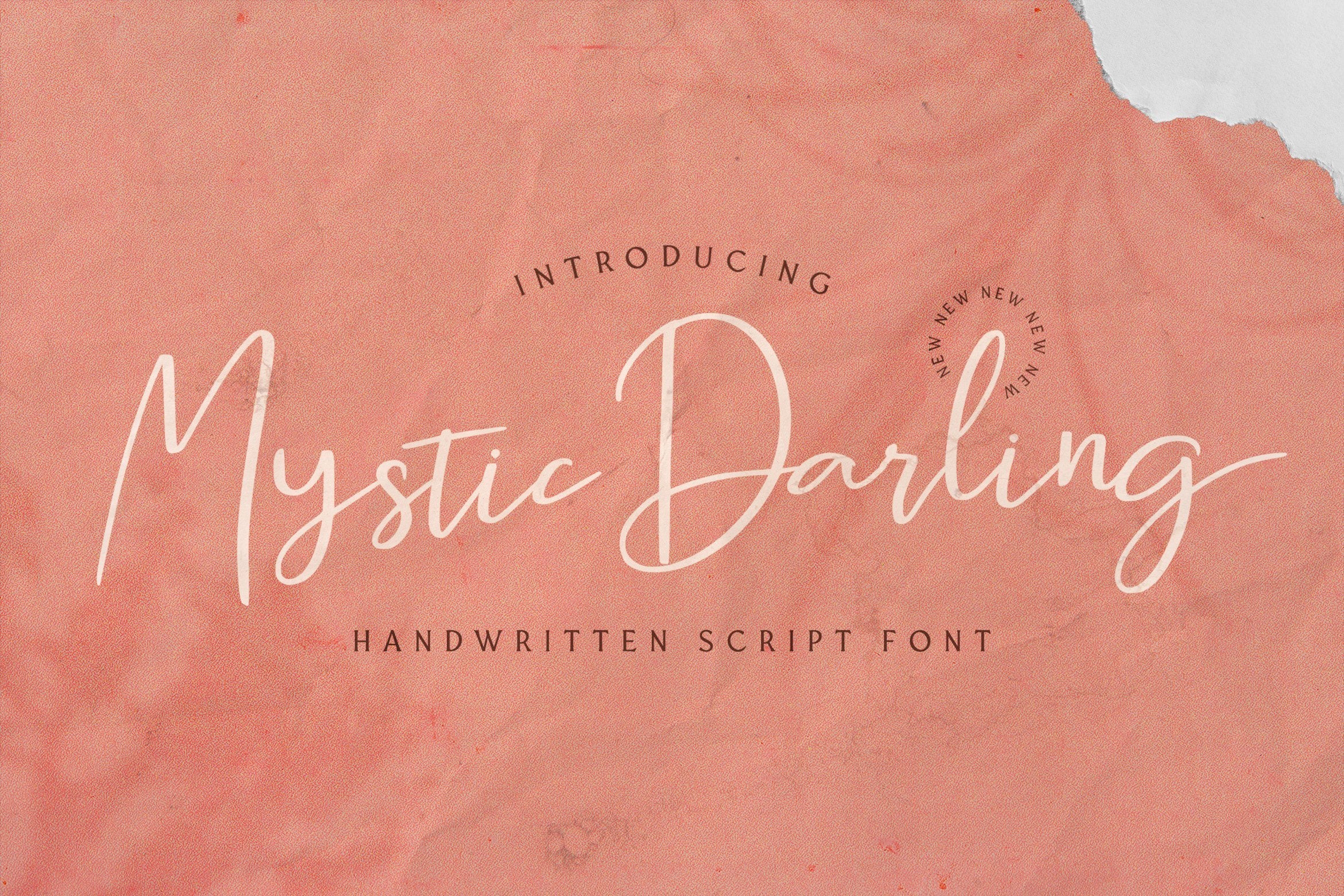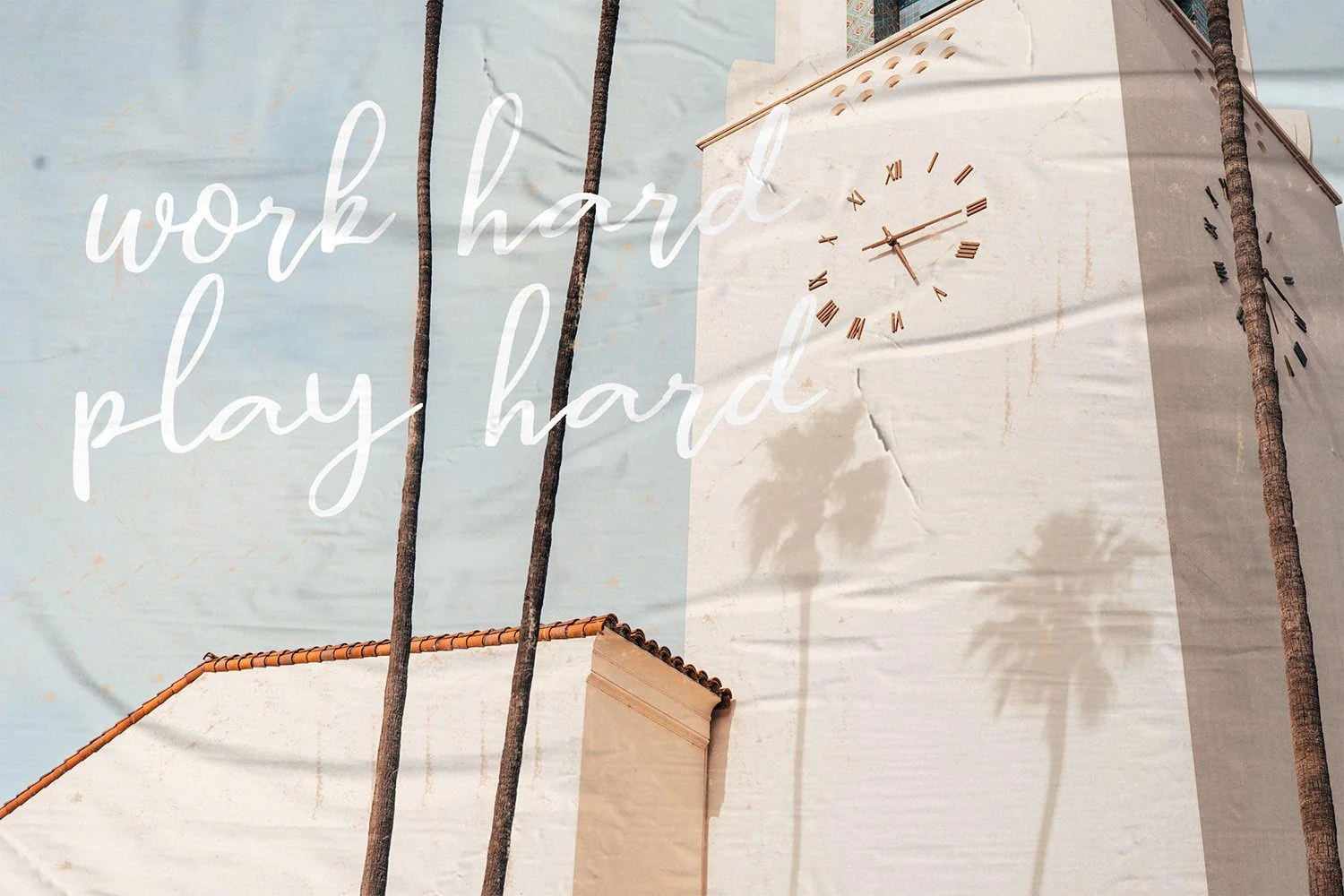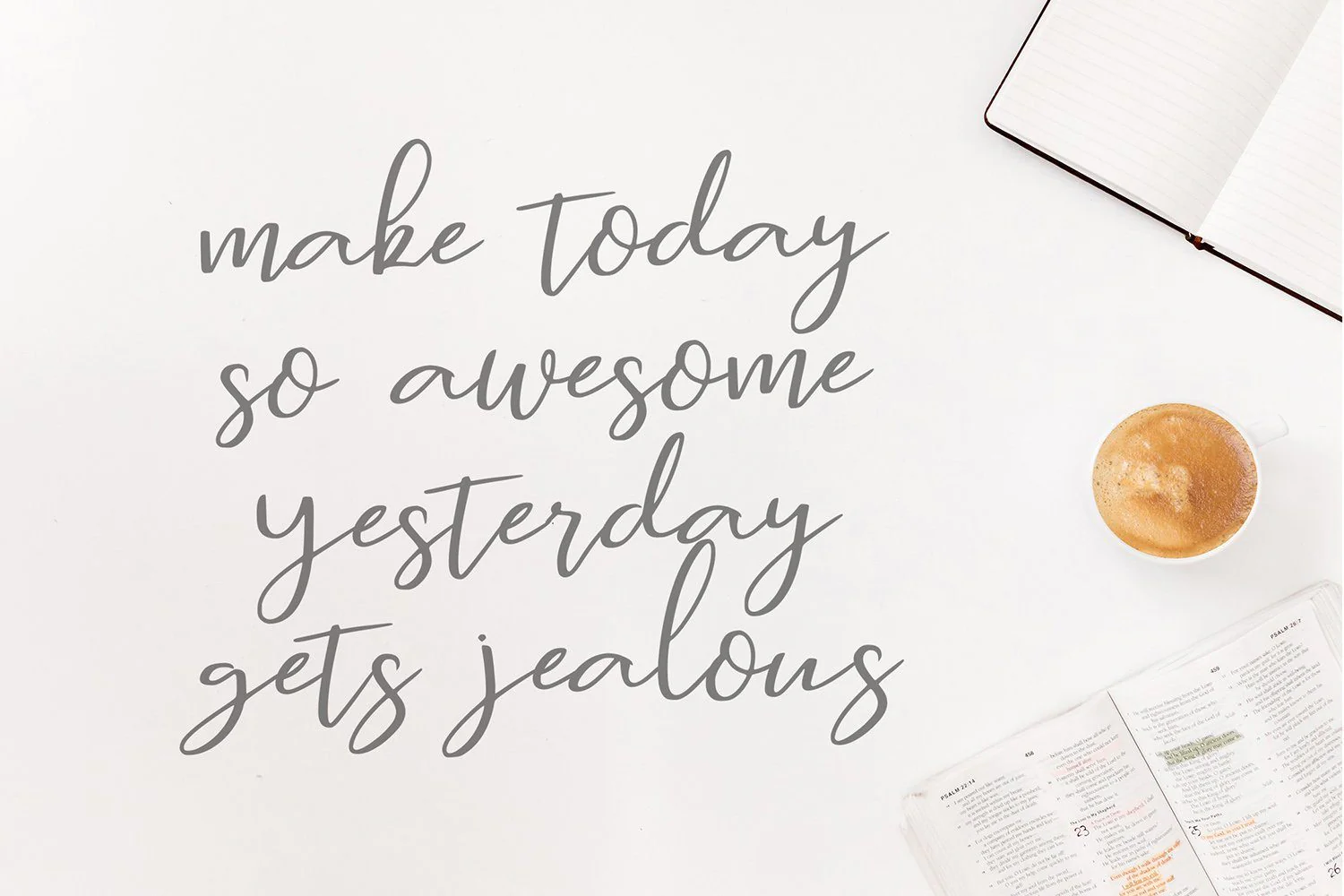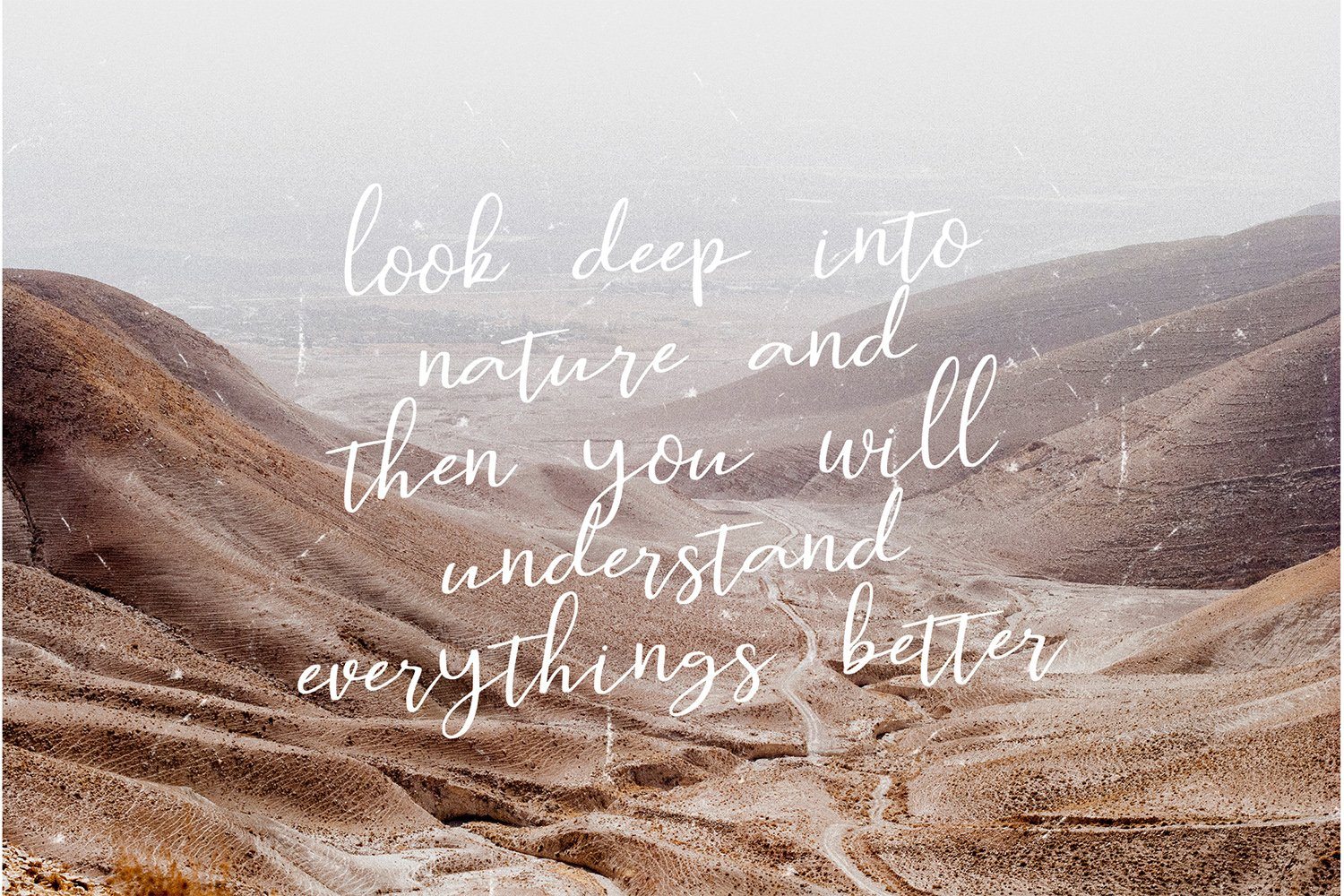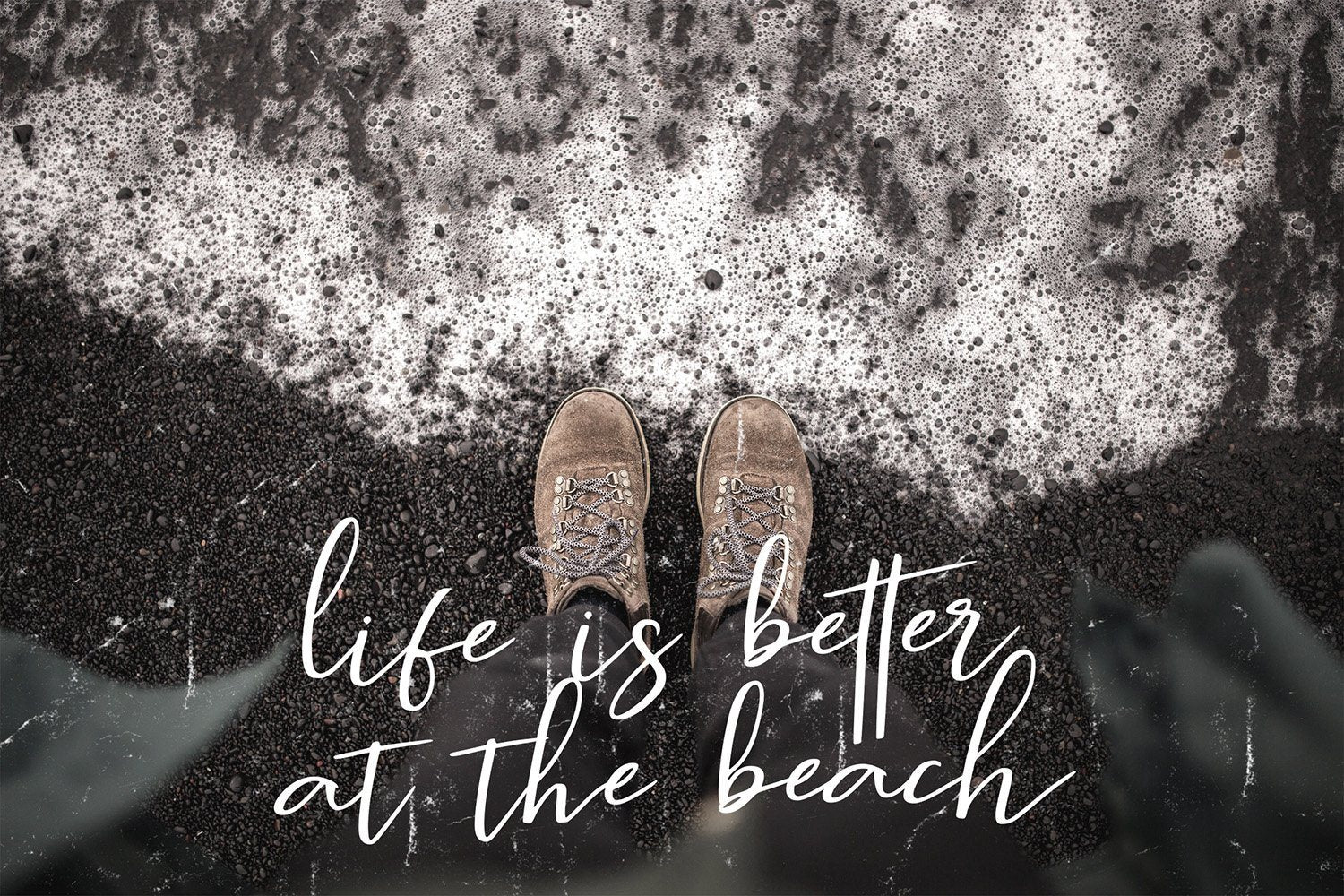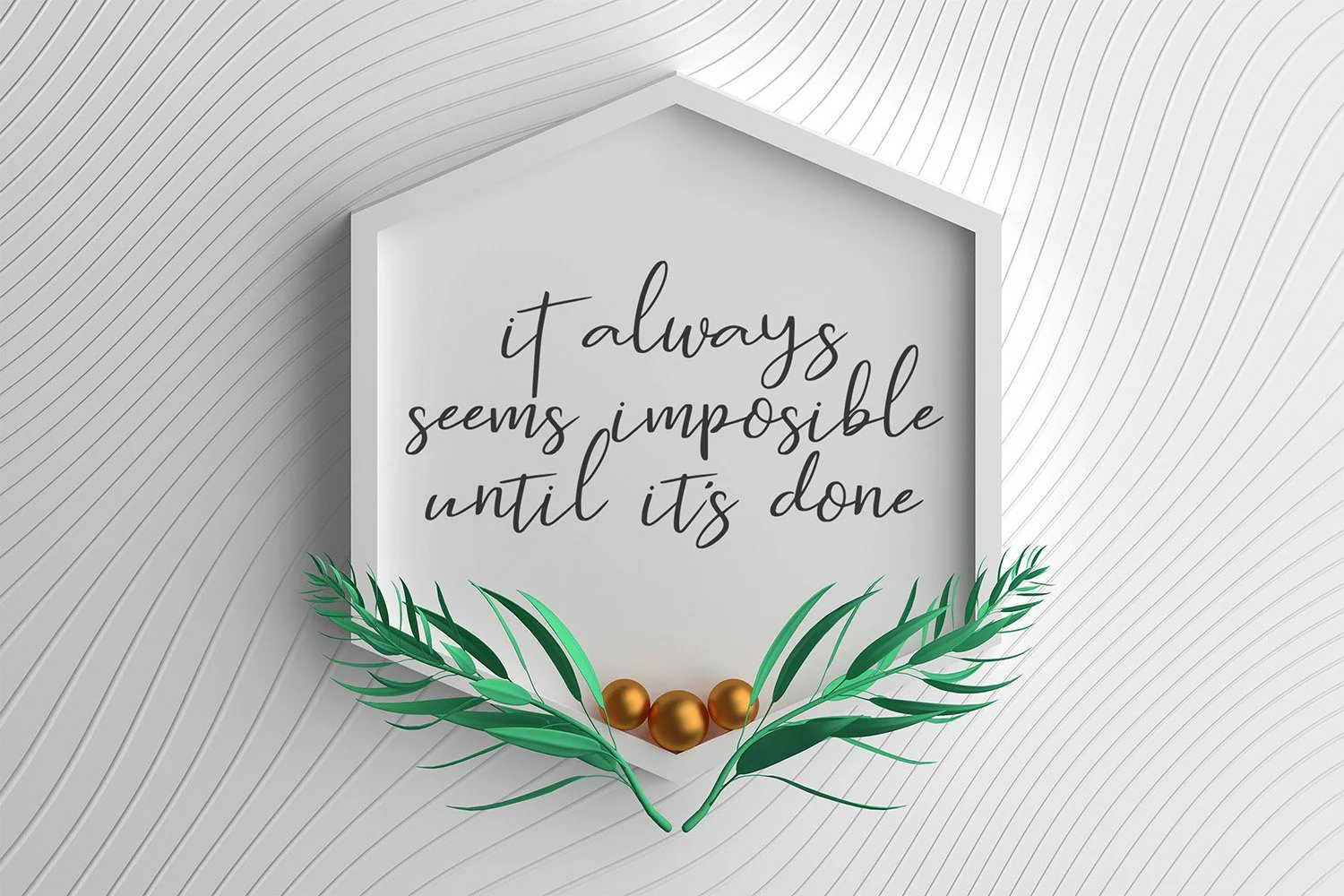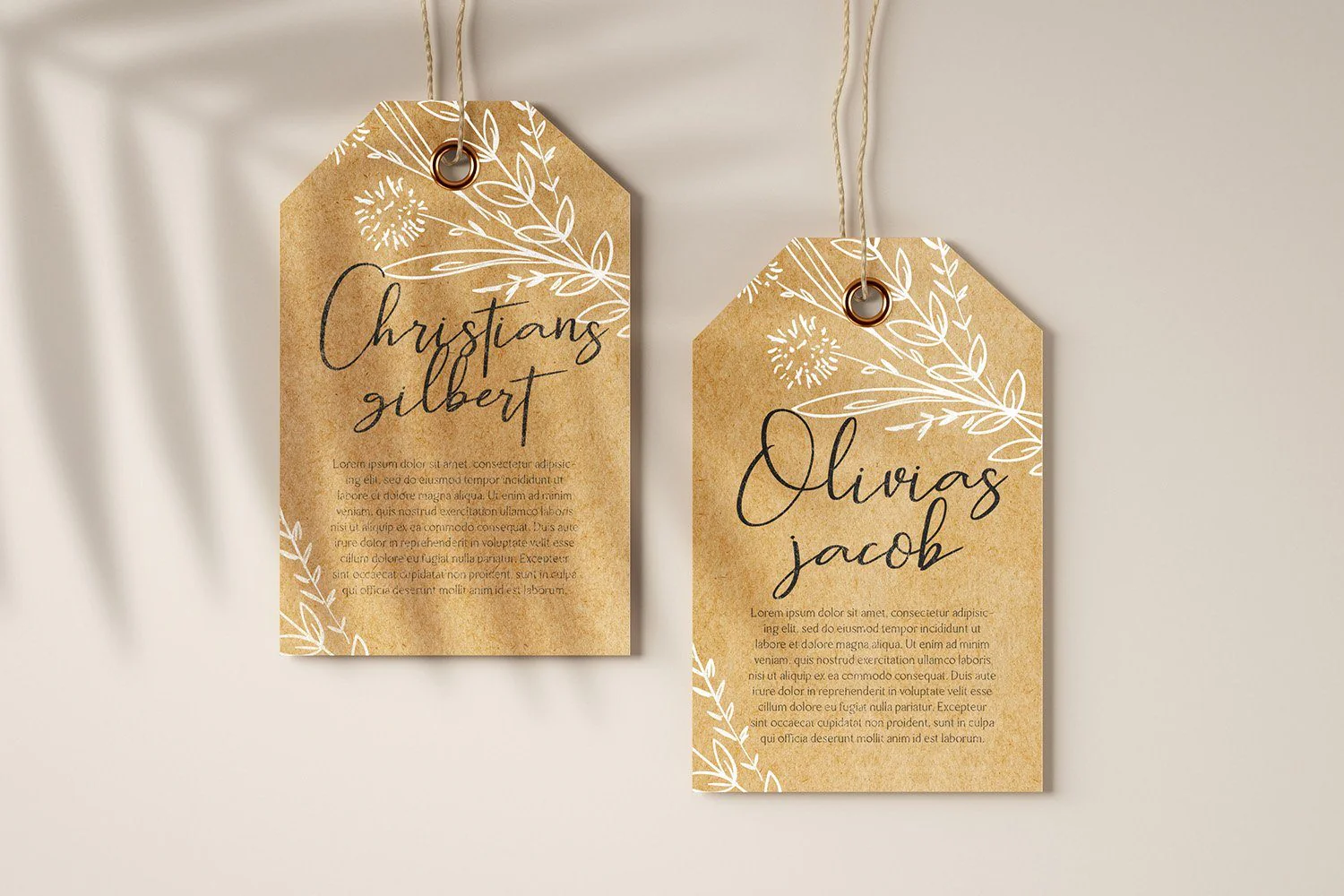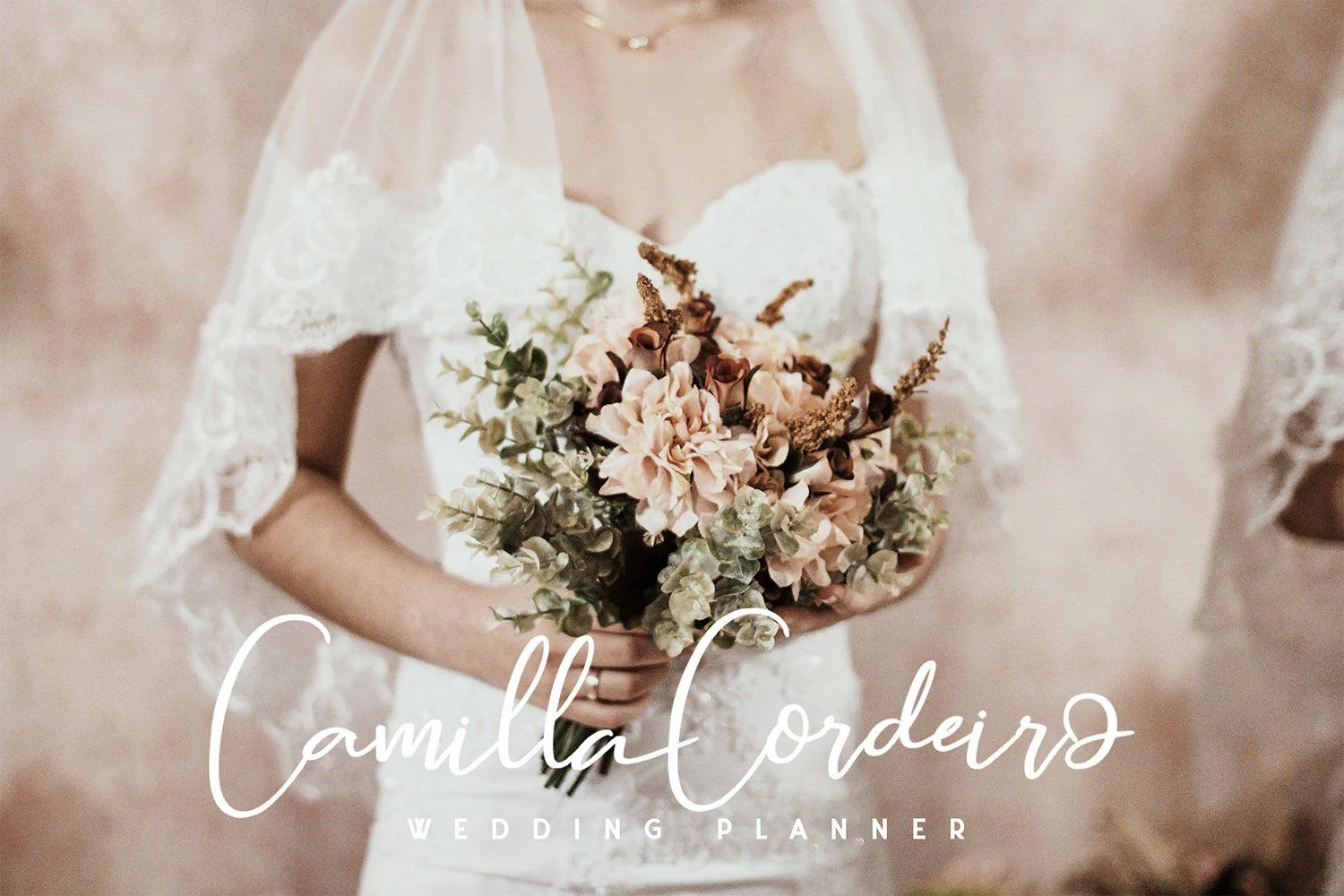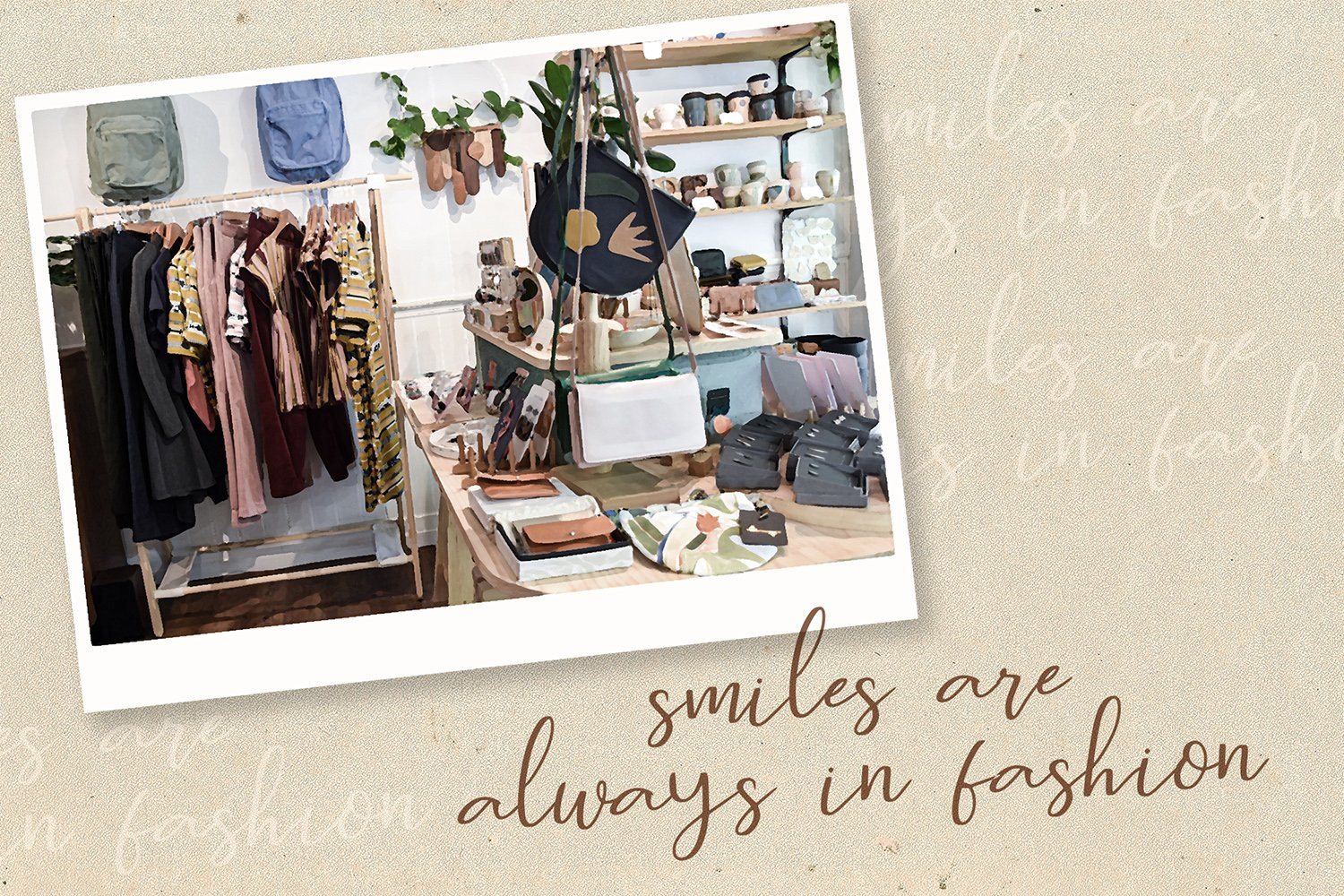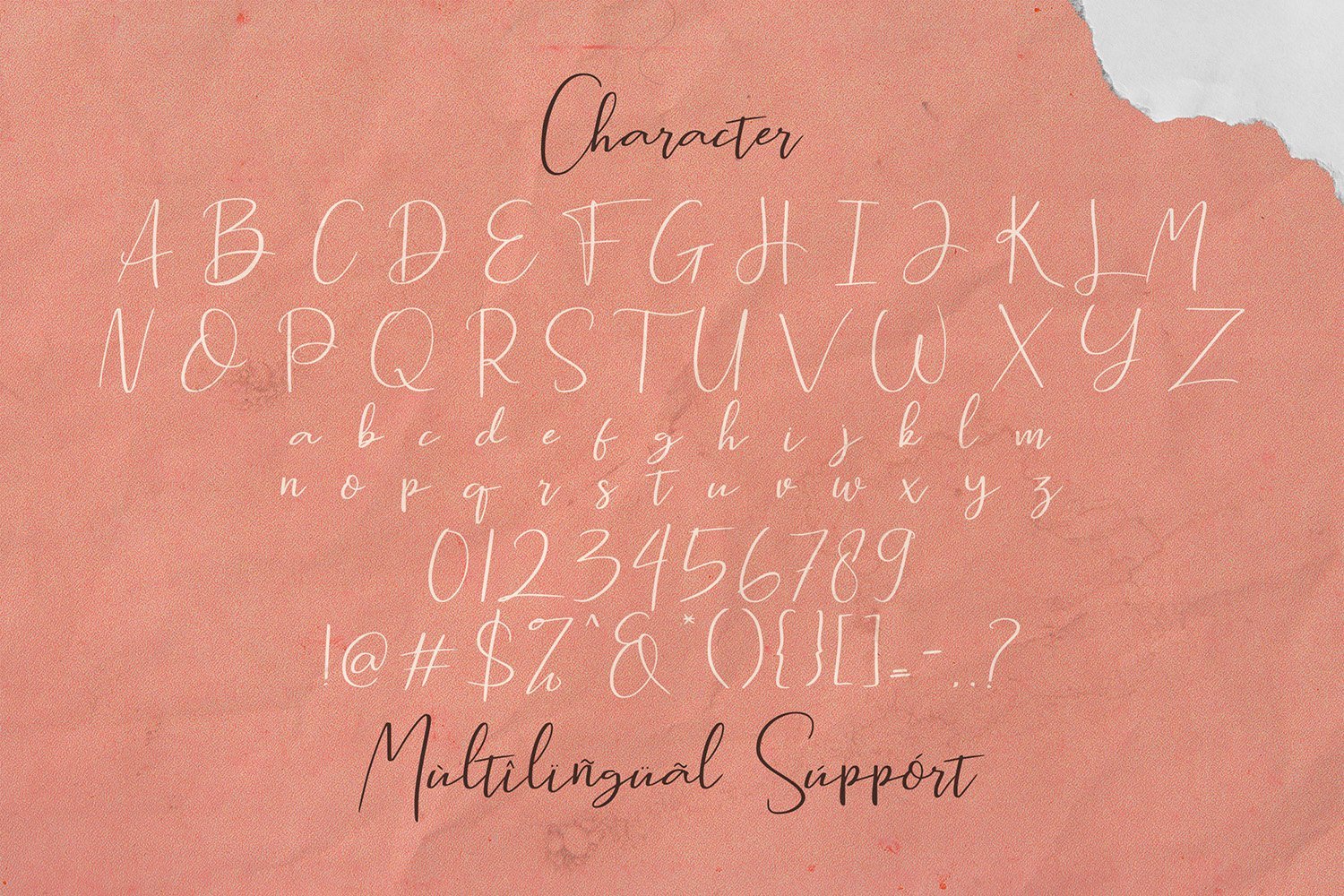
Mystic Darling - Handwritten Font
Introducing Mystic Darling - Handwritten Font
Mystic Darling is a Script Font with Handwritten Style. The Mystic Darling font made with digital brush pen strokes that making this font look authentic. This font is perfect for fashion brand, wedding invitation, business card, logo brand, signature, and then calligraphy.
This Font contains Classy, Elegant, Creative, Cool and has a Unique Concept.
Introducing Mystic Darling - Handwritten Font
Mystic Darling is a Script Font with Handwritten Style. The Mystic Darling font made with digital brush pen strokes that making this font look authentic. This font is perfect for fashion brand, wedding invitation, business card, logo brand, signature, and then calligraphy.
This Font contains Classy, Elegant, Creative, Cool and has a Unique Concept.